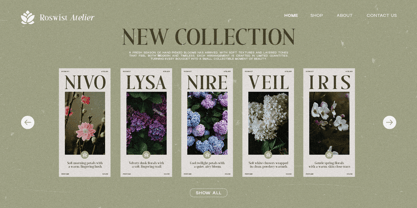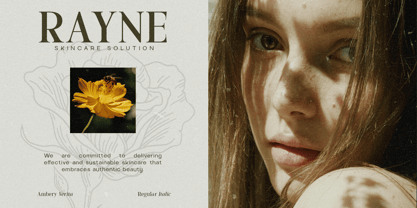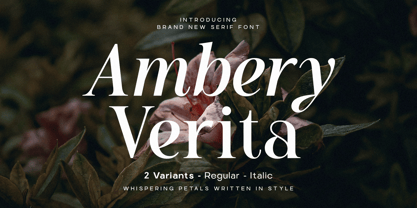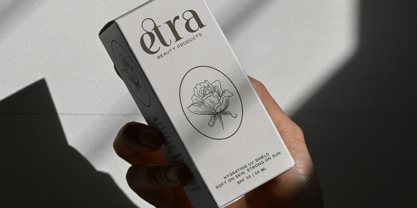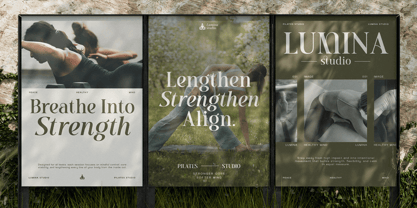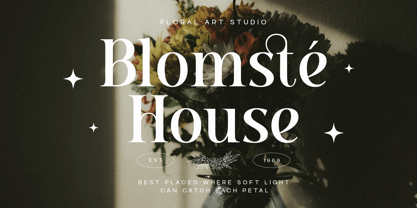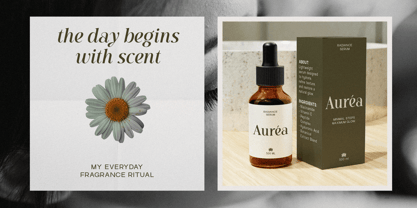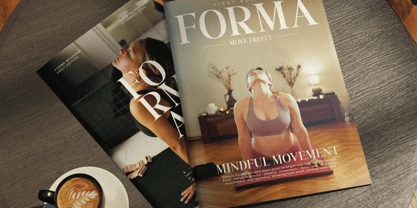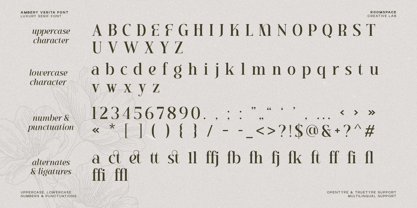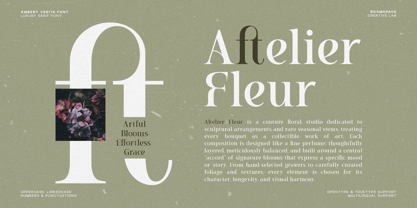
Ambery Verita
by Jafar07
The Ambery Verita Font Family was designed by Bakhrudin Ja'far and published by Jafar07. Ambery Verita contains 2 styles and family package options. More about this family
Ambery Verita is an elegant editorial serif with refined curves and expressive contrast. Its tone is poetic, graceful, and premium designed for luxury branding, wedding aesthetics, magazine layouts, and high-end creative direction. It blends classic serif sophistication with modern fashion-driven flair, making every headline feel timeless, artistic, and emotionally compelling. Featuring 2 styles (Regular & Italic), Ambery Verita brings a sophisticated, romantic energy to any visual composition ideal for designers who need a premium serif that feels timeless yet contemporary. Features 2 styles: Regular & Italic High-contrast modern serif Uppercase & lowercase Multilingual support Elegant curves + editorial styling Perfect For Luxury branding, wedding stationery, magazine layouts, feminine designs, packaging, quotes, social media, logos.
Designers: Bakhrudin Ja'far
Foundry: Jafar07